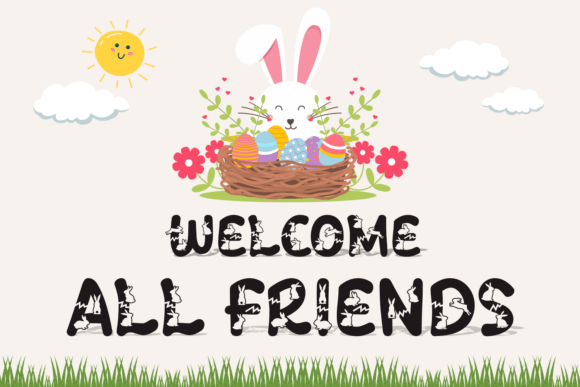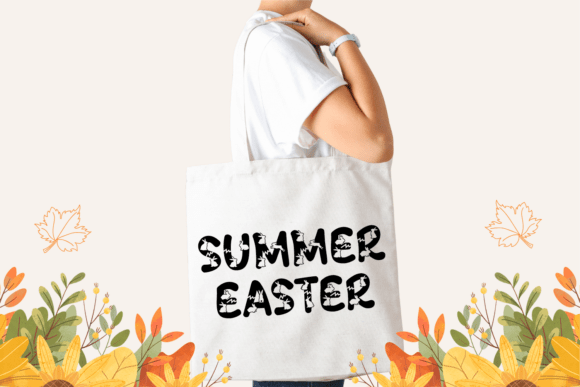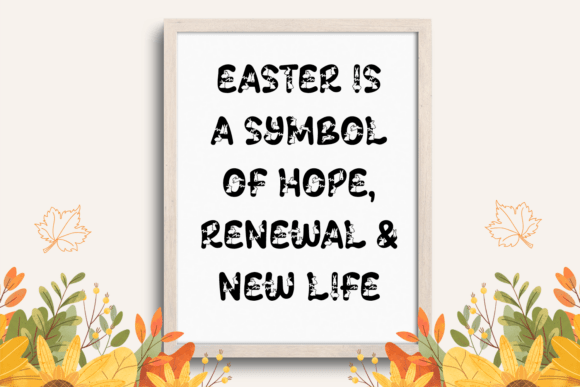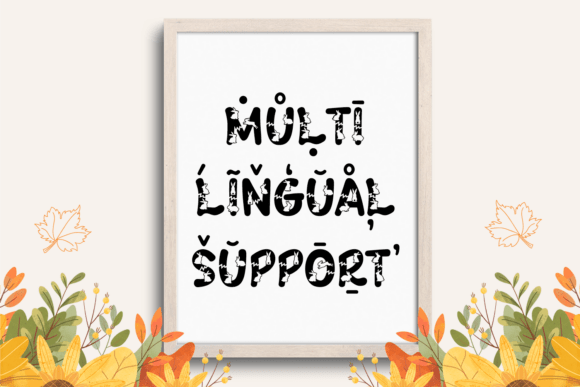
Easter Giving Font: Add a Touch of Festive Joy to Your Creations
Are you looking for a unique and playful font to add a touch of festive joy to your Easter-themed crafts, children’s literature, or any other creative project? Look no further than the Easter Giving Font, a delightful decorative typeface that is sure to charm your audience. In this article, we’ll introduce you to this enchanting font, explore its features, and discuss how it can elevate your designs.
Introducing Easter Giving Font
The Easter Giving Font is a one-of-a-kind decorative typeface that is specifically designed to bring a smile to your face. Each letter in this font is adorned with an adorable bunny, infusing a dash of festive joy and playfulness. The result is a font that is both cute and whimsical, making it perfect for Easter-themed crafts, children’s literature, or any creation that requires a sprinkle of charm.
Key Features of Easter Giving Font
- PUA Encoding: The Easter Giving Font comes with PUA (Private Use Area) encoding, which ensures that you have complete access to all glyphs and swashes. This makes it super user-friendly, allowing you to unleash your creativity without any hassle.
- Decorative Typeface: The font features a unique and decorative design, with an adorable bunny on each letter. This adds a touch of personality to your text, making it stand out from the crowd.
- Easter-themed: The Easter Giving Font is specifically designed for Easter-themed crafts and projects. However, its playful and whimsical design makes it suitable for a wide range of creative applications.
The Easter Giving Font is a dream come true for designers and crafters who are looking to add a touch of festive joy to their creations. Whether you’re working on Easter-themed crafts, children’s literature, or any other project that requires a playful and whimsical font, this font is sure to impress. Here are some ideas for using the Easter Giving Font:
- Easter-themed Crafts: Use the Easter Giving Font to create adorable Easter-themed crafts, such as greeting cards, invitations, and decorations.
- Children’s Literature: Add a touch of playfulness to your children’s literature with the Easter Giving Font. This font is perfect for storybooks, activity books, and other kids’ publications.
- Social Media Graphics: Use the Easter Giving Font to create engaging social media graphics, such as Easter-themed posts, ads, and promotions.
Tips for Using Easter Giving Font
To get the most out of the Easter Giving Font, here are some tips to keep in mind:
- Experiment with Colors: The Easter Giving Font looks great in a variety of colors, so don’t be afraid to experiment and find the perfect color scheme for your project.
- Mix and Match: Try mixing and matching the Easter Giving Font with other fonts to create a unique and eye-catching design.
- Use Swashes and Glyphs: Take advantage of the PUA encoding and use the swashes and glyphs to add more personality to your text.
The Easter Giving Font is a delightful decorative typeface that is sure to bring a touch of festive joy to your creations. With its adorable bunny design, PUA encoding, and playful personality, this font is perfect for Easter-themed crafts, children’s literature, or any other project that requires a sprinkle of charm. So why wait? Download the Easter Giving Font today and unleash your creativity!